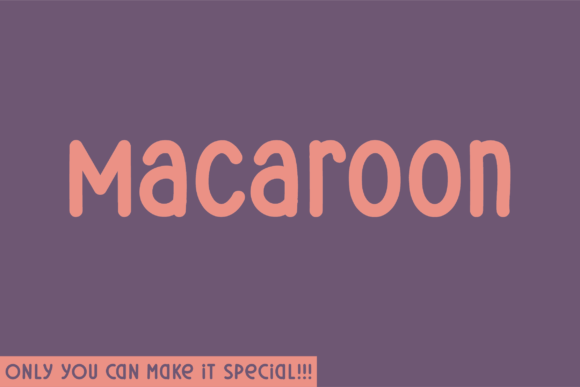
Add a touch of sweetness to your digital creations with Macaroon Sans Serif Font, crafted by the talented Hanna Bie! Its unique and captivating design, born from the magic of unmodified nodes, will instantly charm your audience.
Macaroon is not just another font; it's a literary sanctuary, a perfect companion for your precious notes and captivating quotes. Its effortless readability will caress your eyes, inviting you to delve deeper into the realm of written wonders.
Envision your social media posts adorned with Macaroon's enchanting curves, drawing hearts and sparking conversations. Create eye-catching tees that whisper tales of style and wit. Let Macaroon dance upon your product designs, adding a sprinkle of delight to every creation.
With Macaroon, the possibilities are as endless as your imagination. Its timeless appeal will transcend trends, ensuring that your designs remain fresh and alluring for years to come. Embrace the allure of Macaroon today and let its sugary charm elevate your digital presence to new heights!